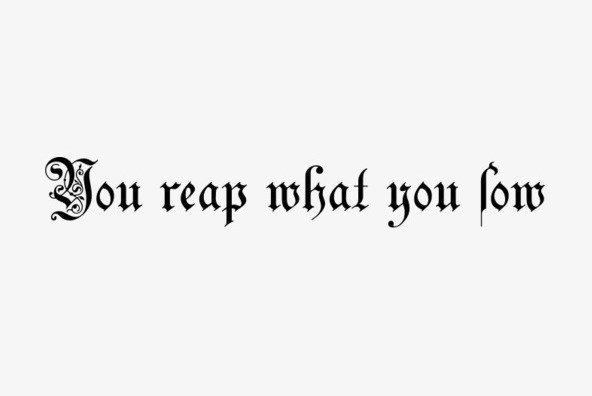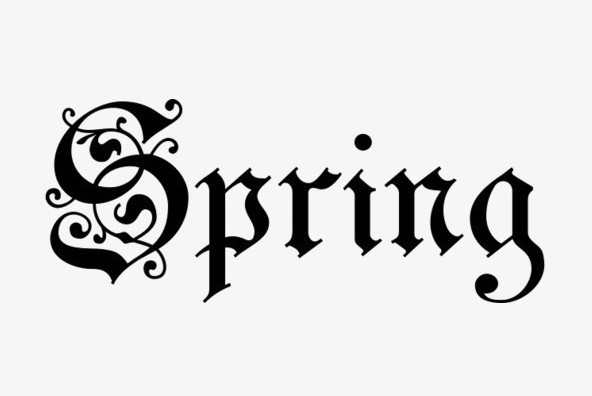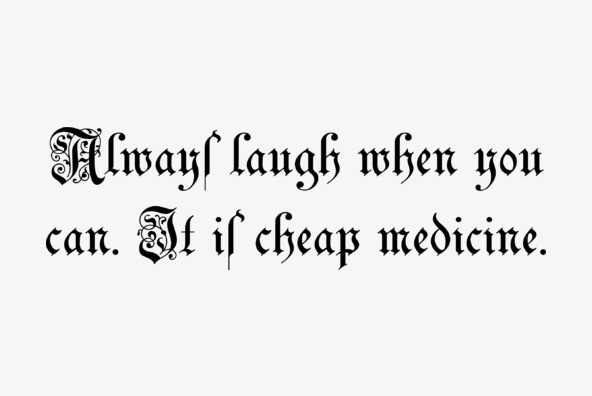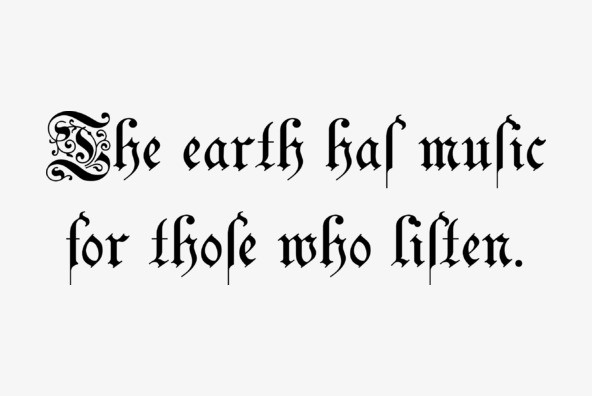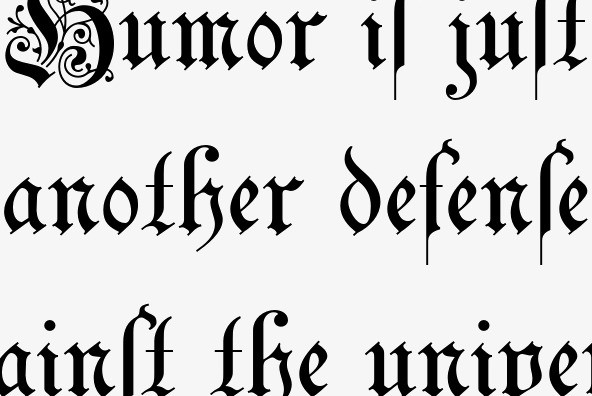
Celebration
A blackletter font of decorative style and of obscure origin which was rescued for all devotees of these old hot-metal letters. This font contains a bunch of useful ligatures, and by typing ‘N’, ‘r’ and period you get an old-style number sign.